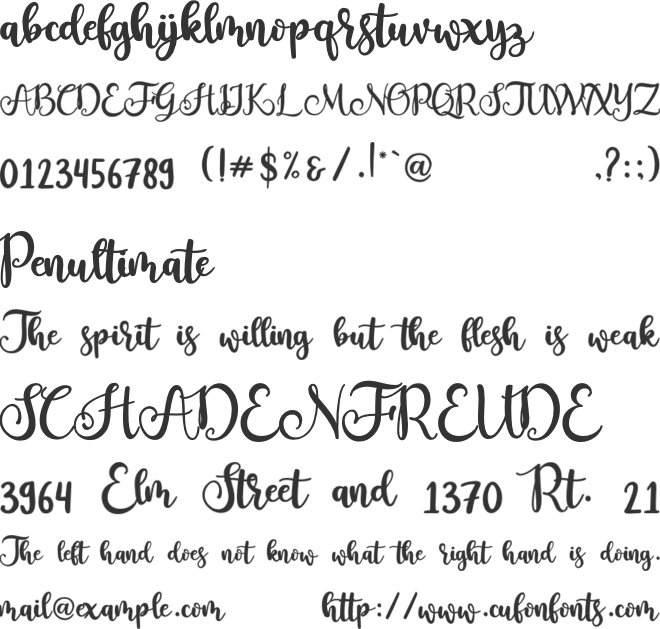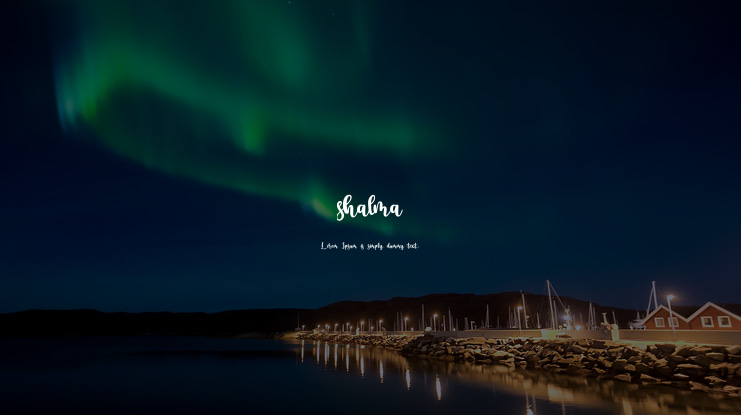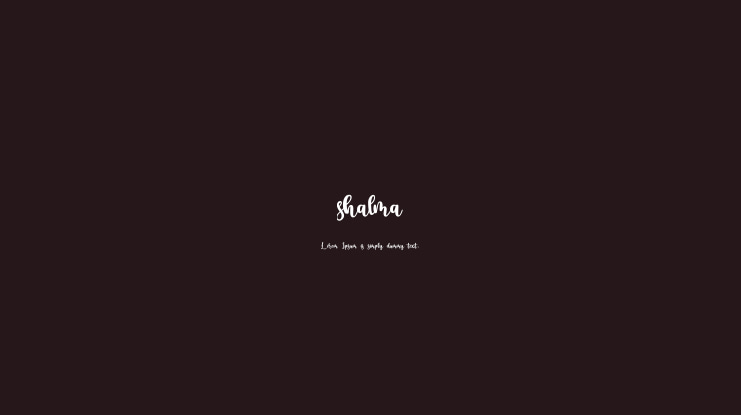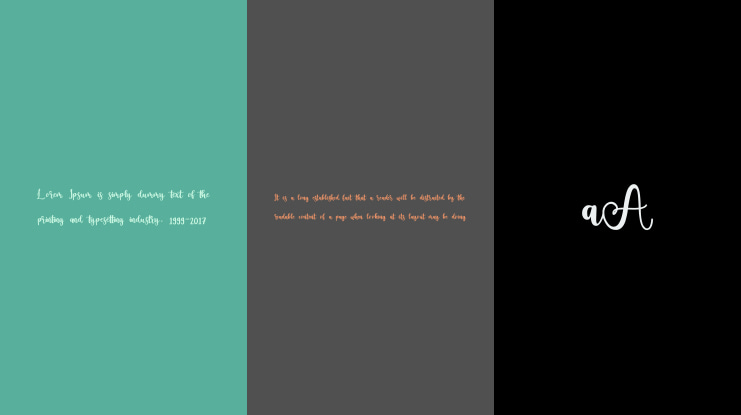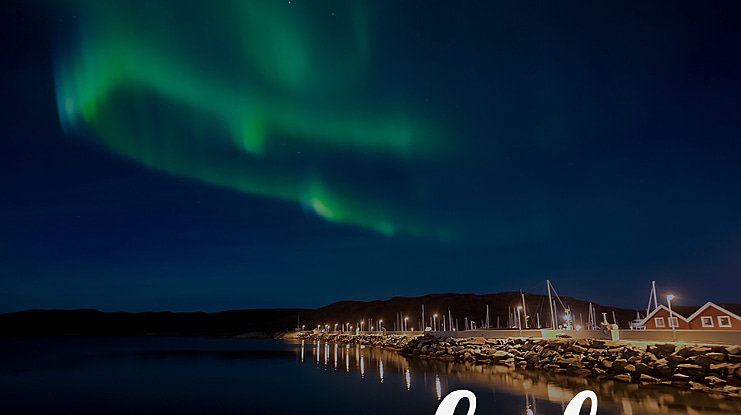
shalma Font
We are proud to present our new font.
It's name Shalma
Shalma is a beautiful calligraphy font with swashes. It is a cute a fun font.
But can also be used invitation, logos & branding, photography, advertisements, watermark, social media posts, product packaging, product designs, label, wedding designs, stationery, special events or anything that need handwriting taste.